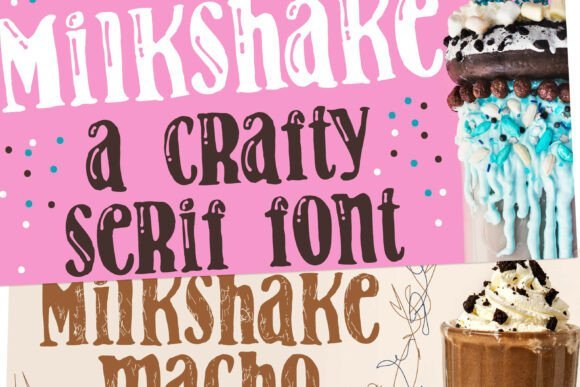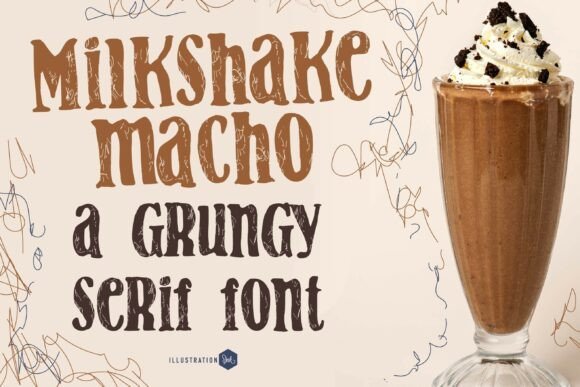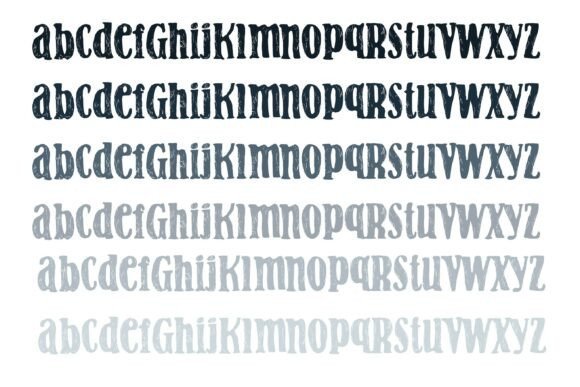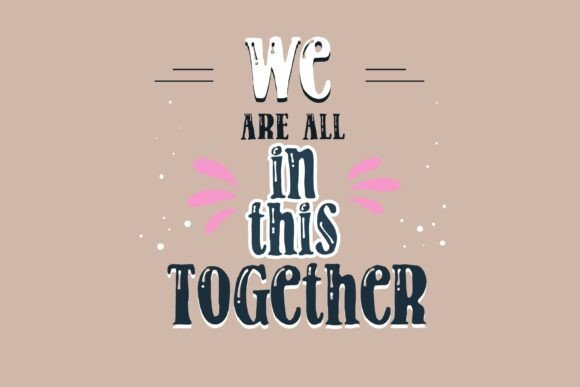
Milkshake Family Font
Satisfy your sweet tooth for design with Milkshake, a thick, hand-carved decorative serif font that captures a “playful-and-creamy” soul. This font features dense, bouncy letterforms uniquely characterized by liquid-like light reflection slots and irregular, hand-snipped outlines that bridge the gap between nostalgic ice cream parlor menus and modern indie kitchen branding. With its heavy footprint and joyful structure, Milkshake is the premier choice for independent confectionery identities, boutique milkshake bar logos, children’s event posters, and high-impact “sweet-and-cheerful” social media marketing headlines.